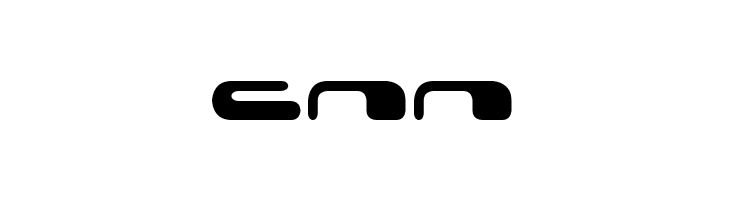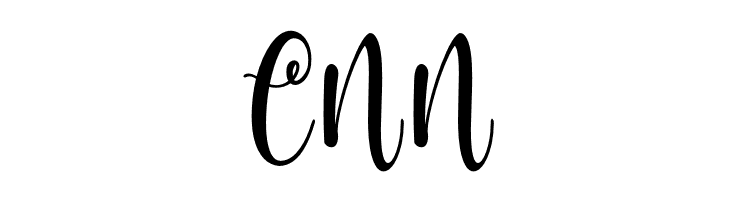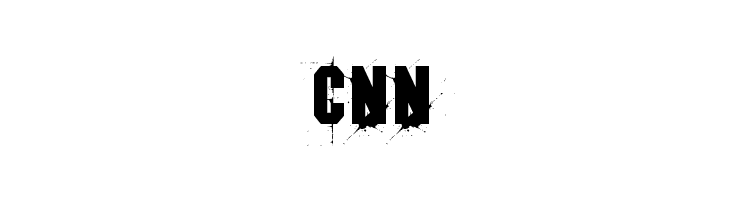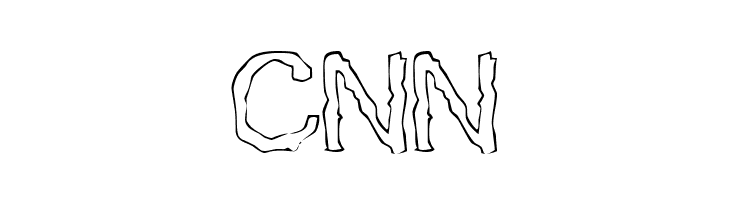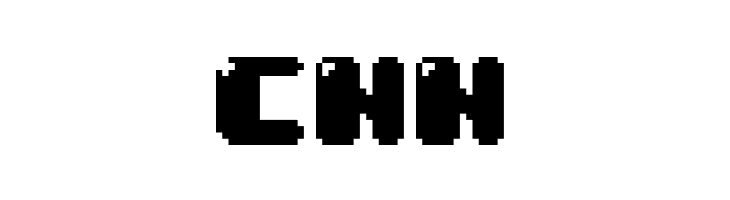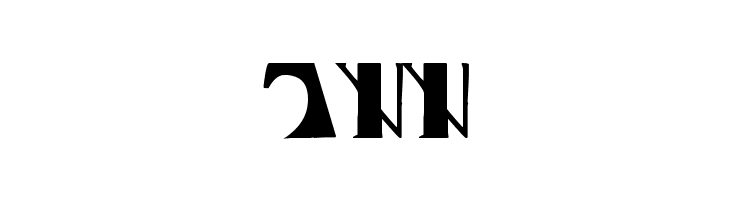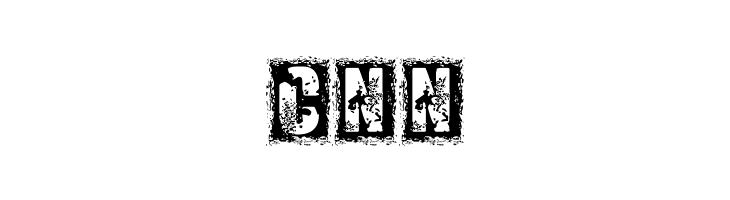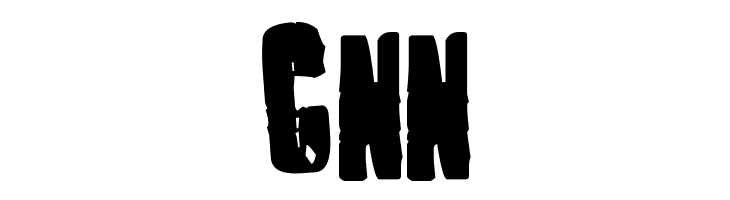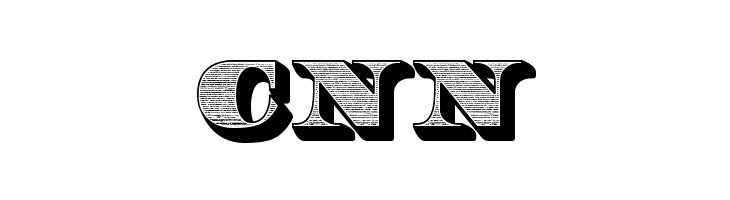
A flowing, cursive script font with elegant loops and swashes.
A bold, pixelated font with a retro, 8-bit style.
A bold, angular font with high contrast and geometric shapes, perfect for impactful designs.
A futuristic, bold font with rounded, geometric letterforms and low contrast.
A bold, distressed font with a grunge aesthetic and angular, geometric characters.
A bold, decorative font with a vintage, engraved appearance and shadow effect.
A sketch-like, hand-drawn font with a playful and artistic style.
A playful, bold, and hand-drawn style font with a whimsical touch.